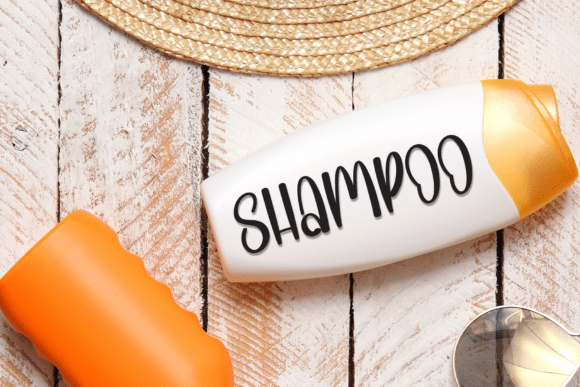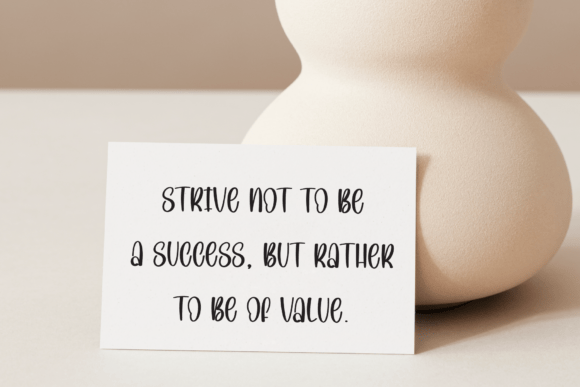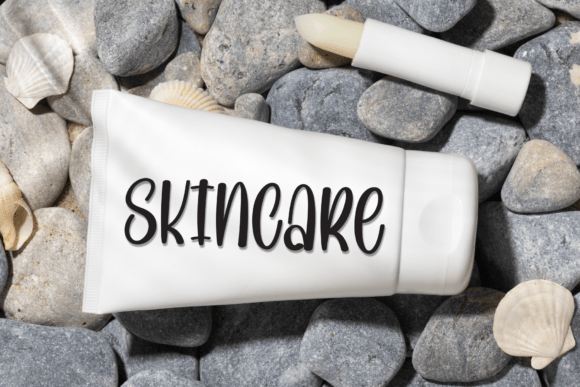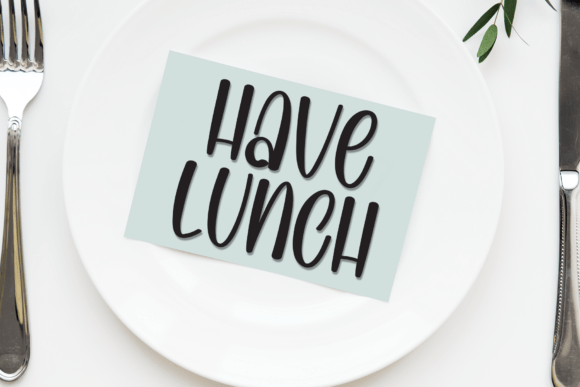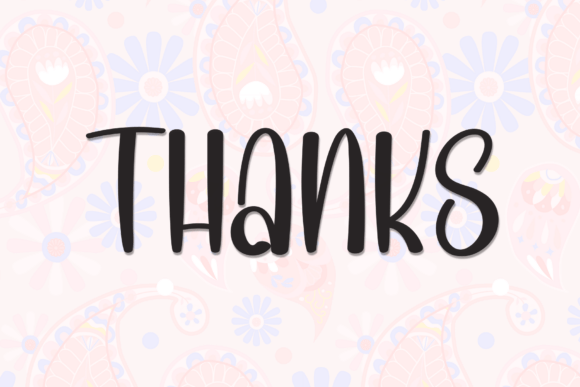
Groovy Baby Font: The Ultimate Retro Handwritten Font for Your Creative Projects
Are you looking for a font that embodies the free-spirited vibes of the ’70s? Do you want to add a touch of vintage charm to your designs while still keeping them modern and fresh? Look no further than Groovy Baby, a bold and playful handwritten font that’s perfect for projects that radiate positivity and fun.
What is Groovy Baby Font?
Groovy Baby is a retro handwritten font that’s inspired by the bubbly and carefree spirit of the 1970s. Its thick strokes, smooth curves, and bubbly shapes bring a cheerful retro energy to every design. This font is perfect for designers and crafters who want to add a sense of warmth and creativity to their layouts.
Key Features of Groovy Baby Font
- Bold and Playful: Groovy Baby is a bold and playful font that’s perfect for making a statement. Its thick strokes and bubbly shapes give it a lively and energetic feel.
- Retro Vibes: This font is inspired by the free-spirited vibes of the ’70s, making it perfect for projects that want to capture the essence of vintage charm.
- Smooth Curves: Groovy Baby’s smooth curves and flowing letters give it a natural and hand-crafted feel.
- Versatile: This font is perfect for a wide range of projects, including posters, T-shirt prints, stickers, social media graphics, branding, and groovy quotes.
Why Use Groovy Baby Font?
Groovy Baby font is the perfect choice for designers and crafters who want to add a touch of nostalgia and playfulness to their designs. Here are some reasons why you should use Groovy Baby font:
- Adds a Touch of Vintage Charm: Groovy Baby font captures the essence of vintage charm with a modern twist, making it perfect for projects that want to stand out.
- Conveys Positivity and Fun: This font’s bubbly shapes and smooth curves bring a cheerful retro energy to every design, making it perfect for projects that want to radiate positivity and fun.
- Expressive and Creative: Groovy Baby’s expressive letters flow naturally, giving your designs a hand-crafted, nostalgic touch that feels both lively and stylish.
How to Use Groovy Baby Font?
Groovy Baby font is easy to use and can be applied to a wide range of projects. Here are some ideas to get you started:
- Posters: Use Groovy Baby font to create eye-catching posters that capture the essence of the ’70s.
- T-Shirt Prints: Add a touch of retro charm to your T-shirt prints with Groovy Baby font.
- Stickers: Create fun and playful stickers with Groovy Baby font that’s perfect for kids and adults alike.
- Social Media Graphics: Use Groovy Baby font to create engaging social media graphics that stand out from the crowd.
- Branding: Add a touch of personality to your brand with Groovy Baby font that’s perfect for companies that want to convey a sense of fun and positivity.
Tips and Tricks for Using Groovy Baby Font
Here are some tips and tricks to help you get the most out of Groovy Baby font:
- Experiment with Colors: Groovy Baby font looks great with bright and bold colors that match the playful vibe of the font.
- Mix and Match: Don’t be afraid to mix and match Groovy Baby font with other fonts to create a unique and eye-catching design.
- Keep it Simple: Groovy Baby font is bold and playful, so keep your design simple and clean to let the font shine.
Groovy Baby font is a bold and playful handwritten font that’s perfect for designers and crafters who want to add a touch of vintage charm to their designs. With its thick strokes, smooth curves, and bubbly shapes, this font brings a cheerful retro energy to every design. Whether you’re working on posters, T-shirt prints, stickers, social media graphics, branding, or groovy quotes, Groovy Baby font is the perfect choice for projects that radiate positivity and fun.